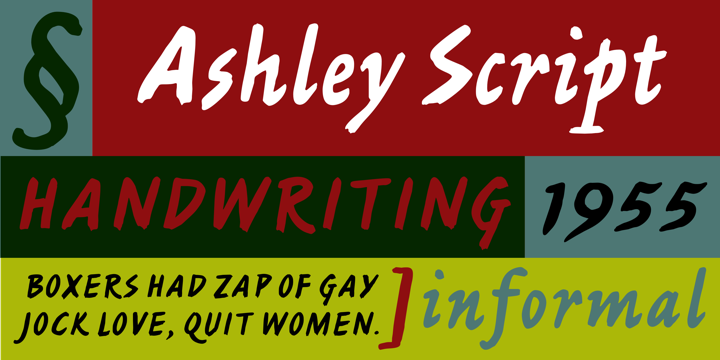
Ashley Script®
Ashley Script® is an Adobe font family with 1 style.
Designed by: Ashley Havinden
Letterform design based on: Ashley Script
Originally created by: Monotype
Ashley Script MT
Designed by Ashley Havindon in 1955 for the Monotype Corporation, Ashley is a brush script with an almost monoline appearance; the capitals are more casual than the lowercase, making the typeface useful for headline settings that require a semi-formal look.